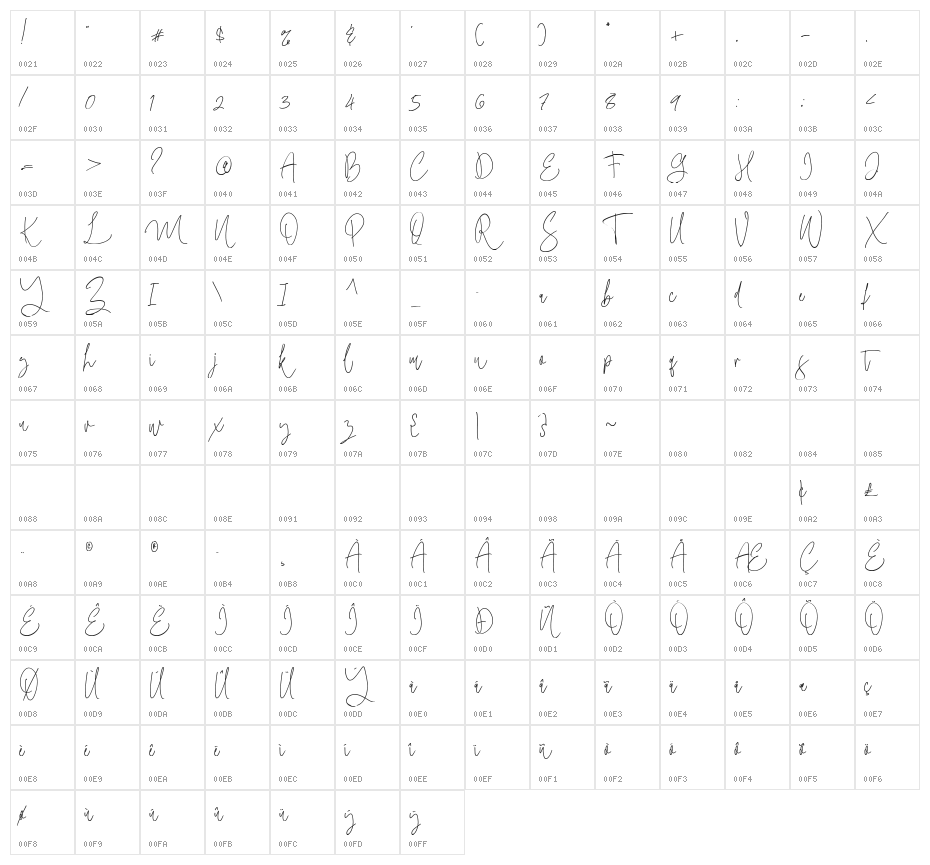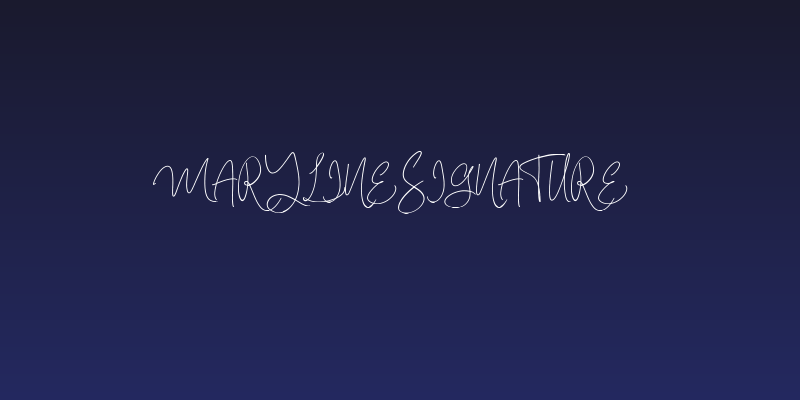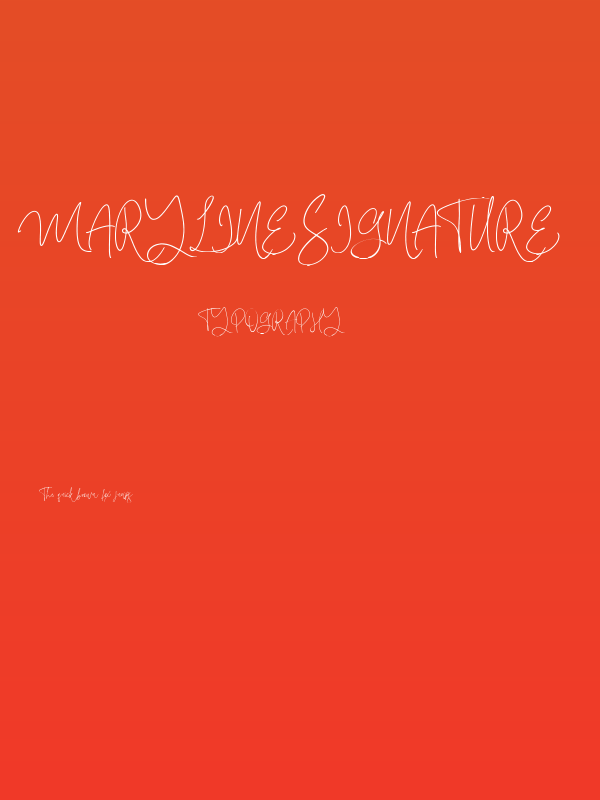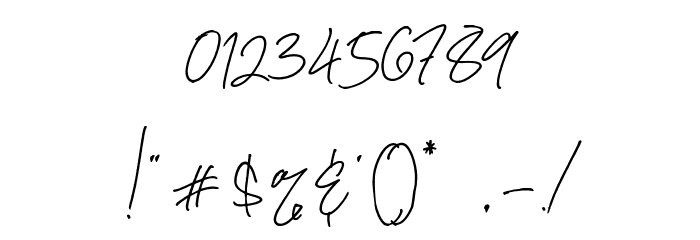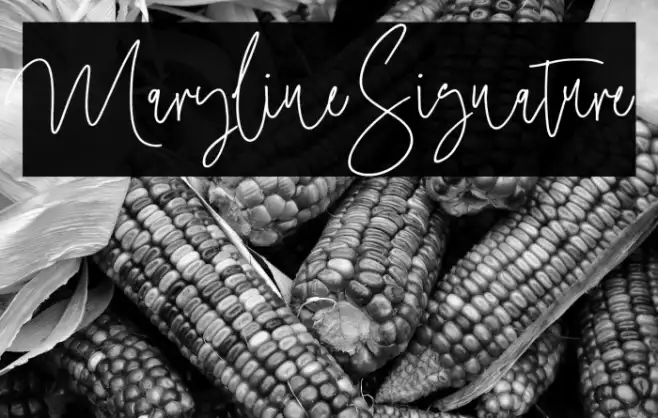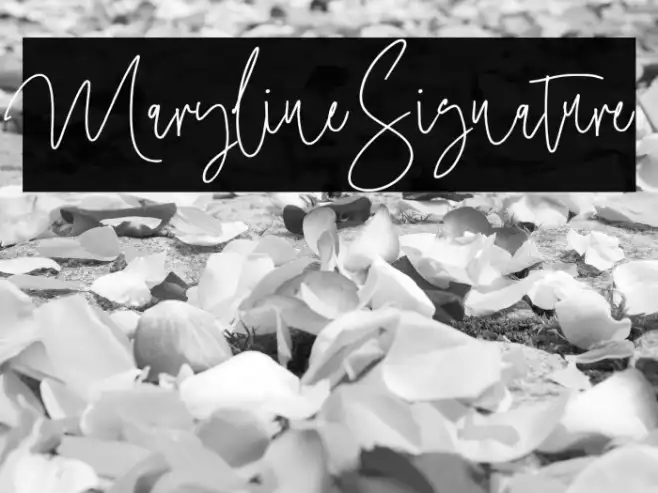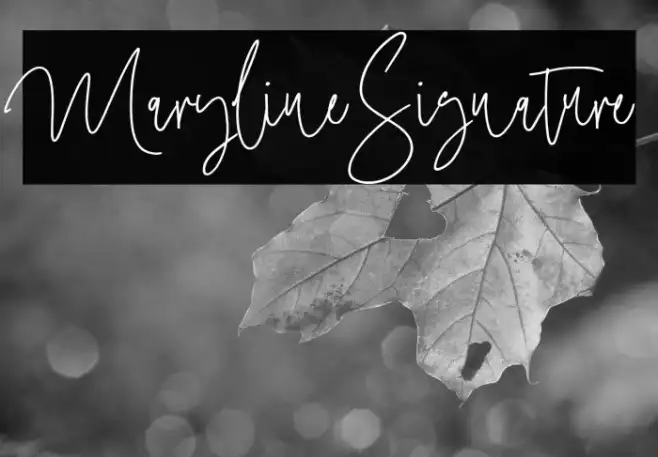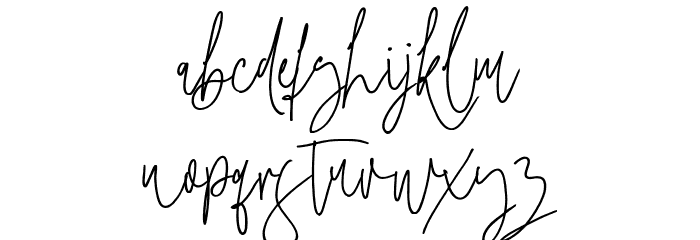
MarylineSignature Font
MarylineSignature Description
This font exudes elegance and fluidity, characterized by its cursive, handwritten style. The letters are connected with smooth, flowing strokes that mimic the natural motion of handwriting. The uppercase letters are bold and prominent, while the lowercase letters maintain a delicate and graceful appearance. Numbers and special characters are crafted with the same attention to detail, ensuring consistency throughout. The overall design is both sophisticated and approachable, making it ideal for projects that require a personal touch.